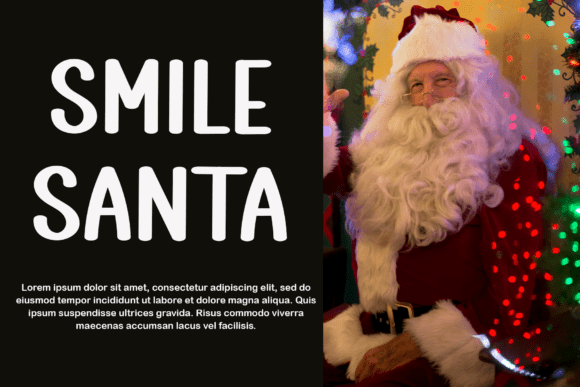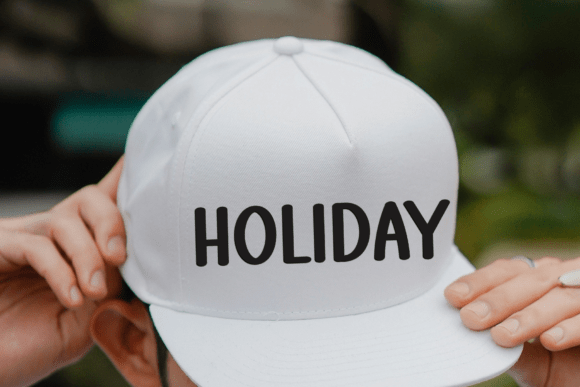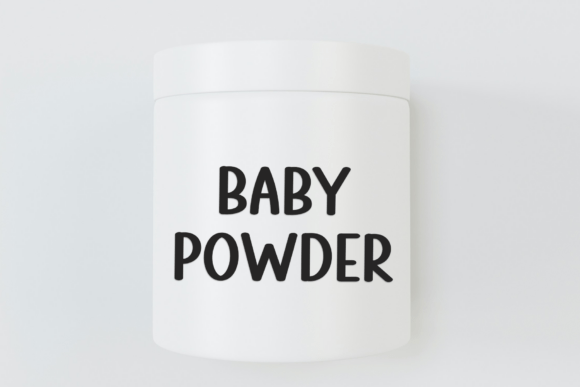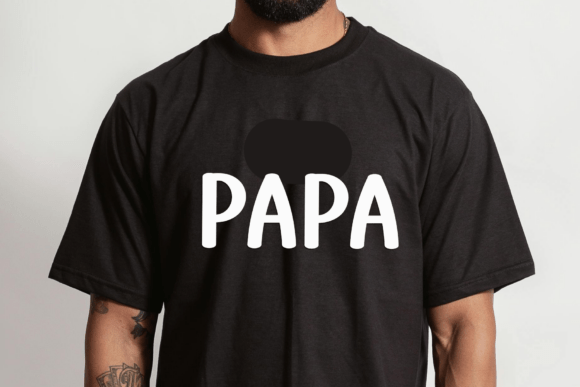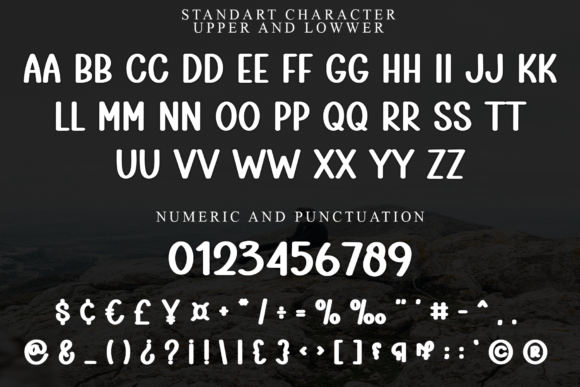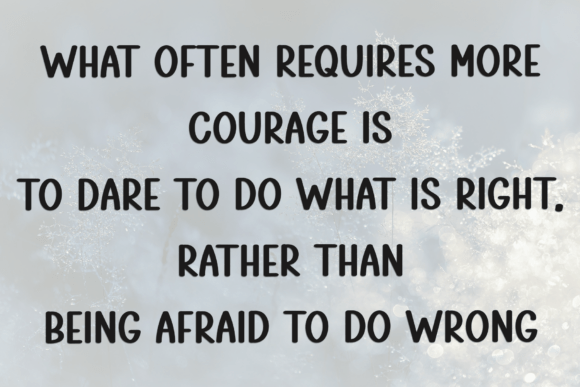
The Charm of Black Vintage Font: A Designer’s New Best Friend
I’ll never forget the time I was working on a project for a client’s birthday party invitation. I had the design concept all sorted out, but I was stuck on finding the perfect font. I wanted something that would convey a sense of warmth, friendliness, and playfulness. That’s when I stumbled upon Black Vintage Font, and it instantly became my go-to choice. In this article, I’ll share my experience with Black Vintage Font, its features, and how to make the most of it in your designs.
An Honest Review of Black Vintage Font
What I Love About Black Vintage Font
- ✨ Warm and Friendly Aesthetic: Black Vintage Font has a unique, hand-drawn charm that adds a touch of personality to any design.
- ✅ Playful Strokes: The font’s round, playful strokes create a relaxed and approachable feel, perfect for personal projects, invitations, and social media graphics.
- 💡 Versatility: Black Vintage Font can be used for a wide range of design projects, from digital graphics to print materials.
While Black Vintage Font is an excellent choice for many design projects, there are a few things to keep in mind:
- ⚠️ Limited Formality: Due to its playful nature, Black Vintage Font may not be the best choice for formal or professional designs.
- 🤔 Glyph Limitations: While the font has a range of glyphs and stylistic alternates, it may not have as many options as some other fonts.
The Backstory of Black Vintage Font
Black Vintage Font was designed with the intention of creating a unique, hand-drawn font that would add a touch of warmth and personality to any design. The designer aimed to create a font that would be perfect for personal projects, invitations, and social media graphics. With its playful strokes and charming aesthetic, Black Vintage Font has become a popular choice among designers and crafters.
Q: What type of projects is Black Vintage Font best suited for?
A: Black Vintage Font is perfect for personal projects, invitations, social media graphics, and other designs that require a warm and friendly aesthetic.
Q: Is Black Vintage Font a script font?
A: No, Black Vintage Font is not a script font, but rather a casual, handwritten font with a unique and playful aesthetic.
Q: Can I use Black Vintage Font in digital and print designs?
A: Yes, Black Vintage Font can be used in both digital and print designs, making it a versatile choice for a wide range of projects.